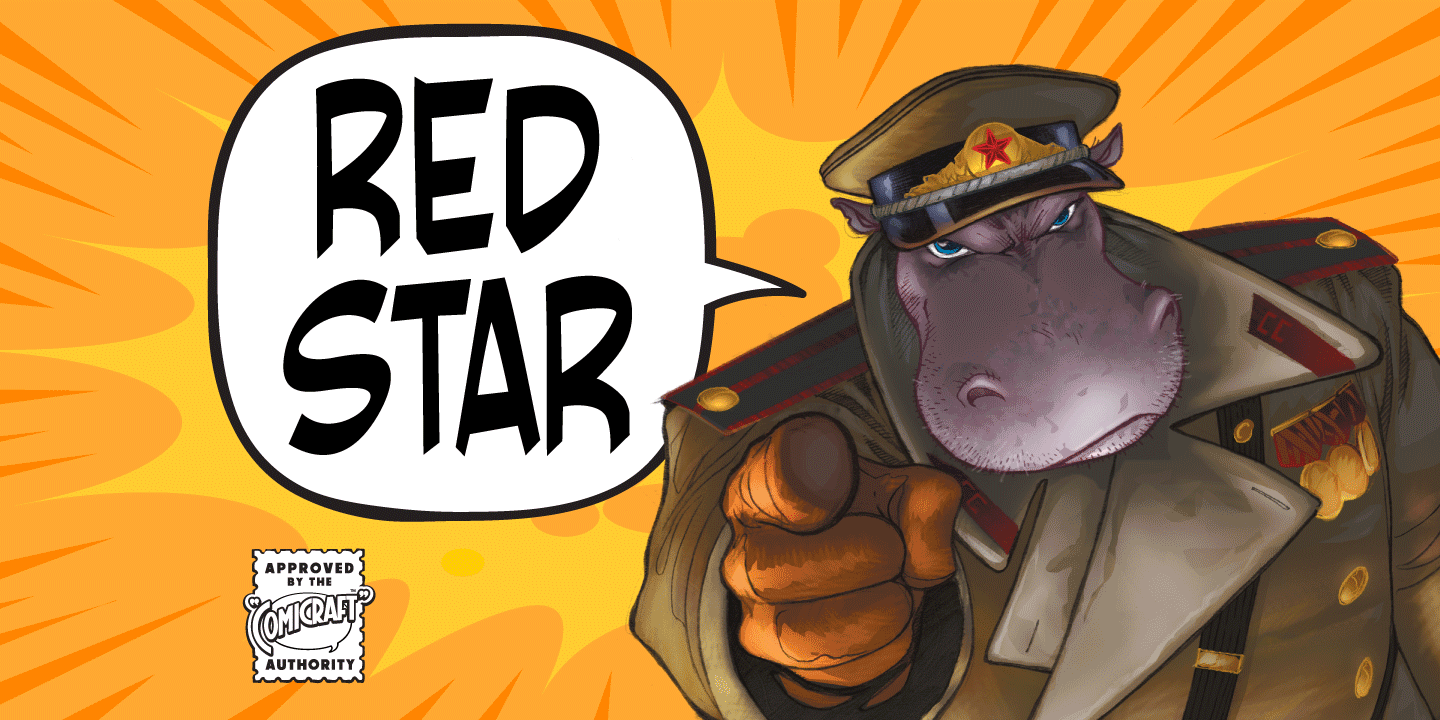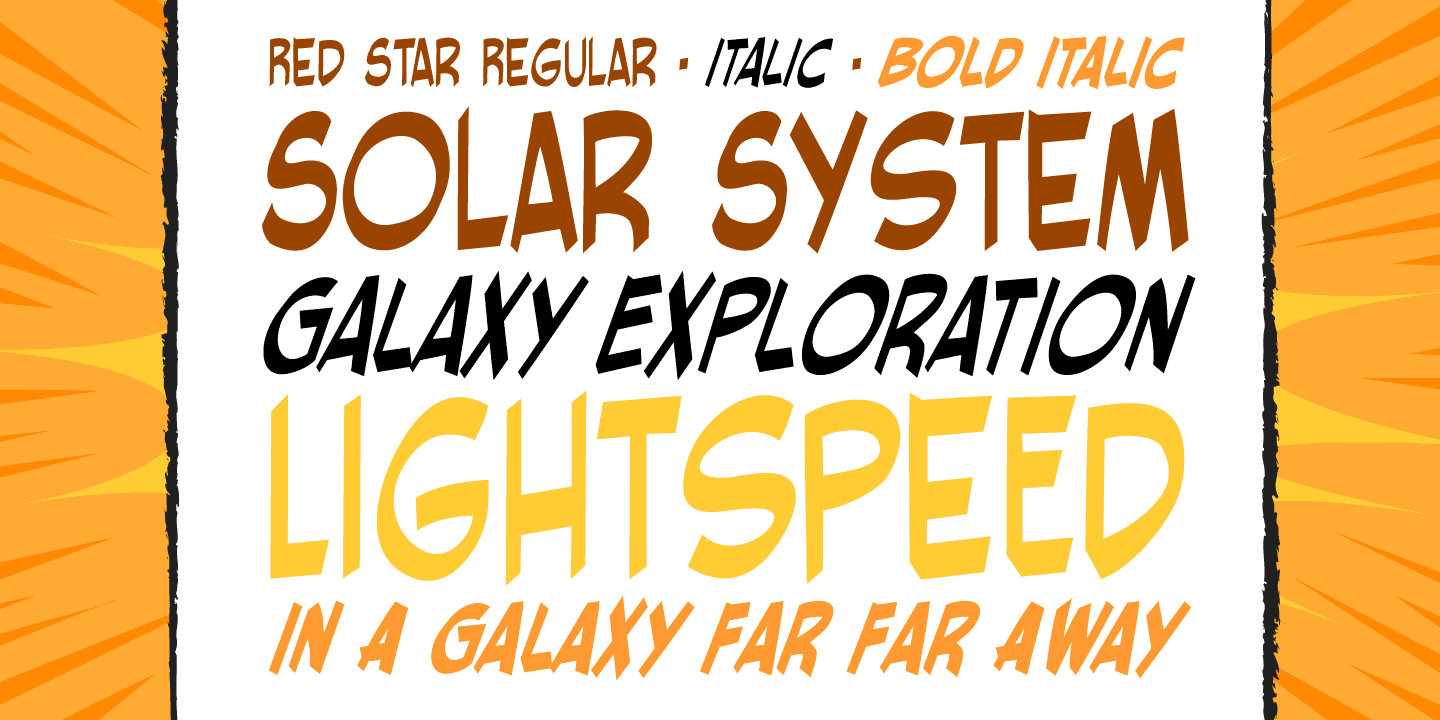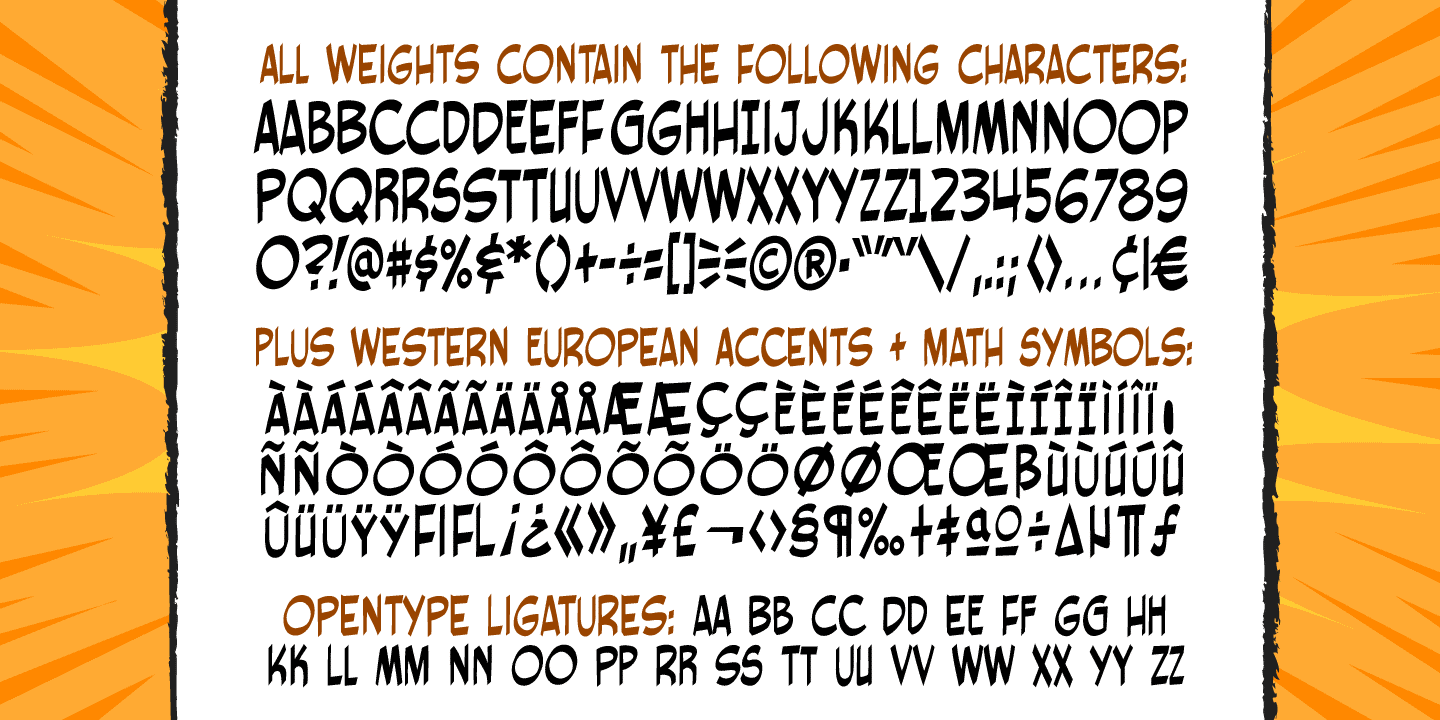
Red Star
Font Family by Comicraft Fonts
Buy NowThe Red Star has risen. Capitalism is on the decline. Under the supervision of Kommisar Christian Gossett and his Red Star cabinet, Comrade Craft has completed the revolutionary new Soviet Block Letters; RedStar, RedSquare and DropCase. The Proletariat is instructed to rejoice. Today is truly a Red Letter Day!